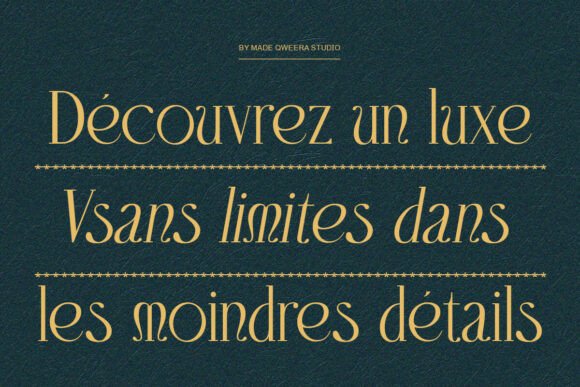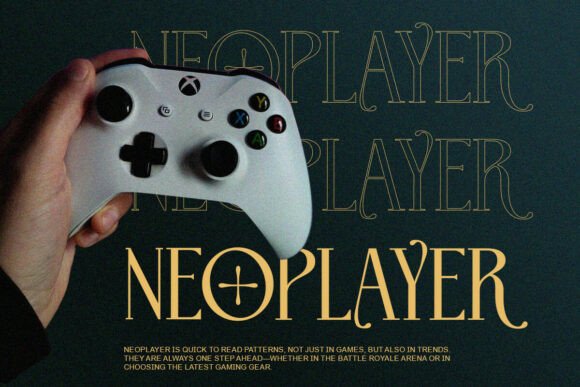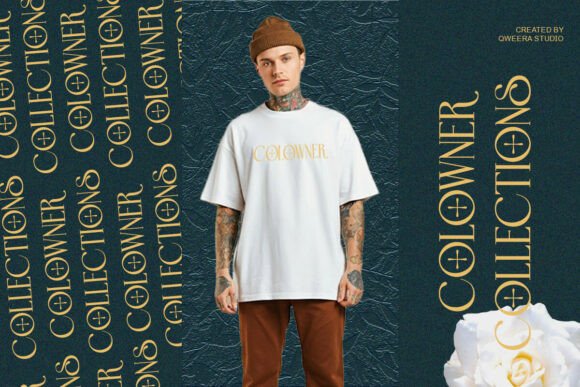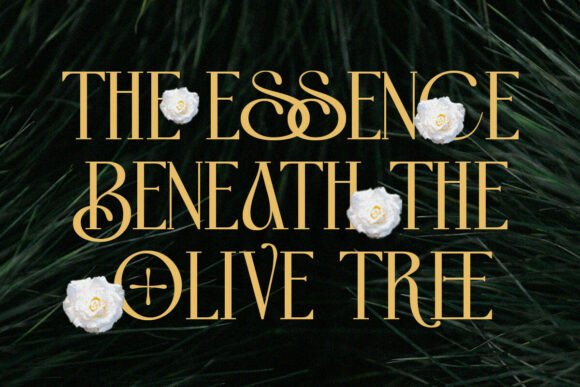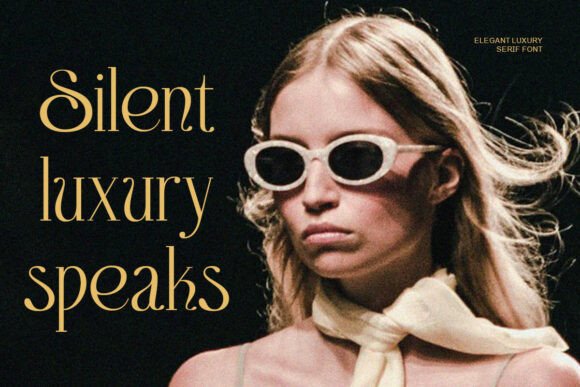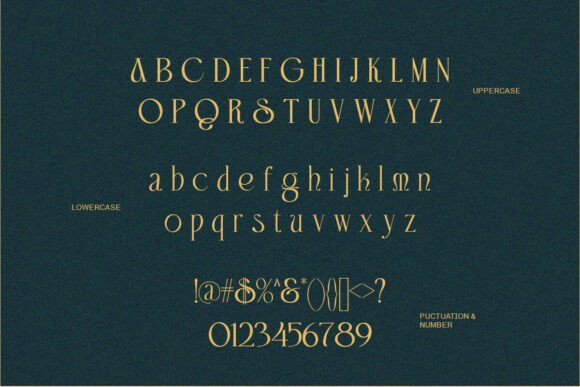
Introducing Domica Sauvage: The Epitome of Luxurious Serif Typography
In the realm of typography, few fonts manage to convey the essence of luxury, elegance, and high-fashion sophistication as effectively as Domica Sauvage. This stunning serif typeface is a masterclass in refined design, boasting elongated letterforms, delicate curves, and distinctive alternate characters that elevate it to a league of its own. Whether you’re a designer, craftsperson, or simply a connoisseur of fine typography, Domica Sauvage is sure to captivate your senses and inspire your creative endeavors.
A Perfect Blend of Elegance and Expressiveness
Domica Sauvage strikes an impeccable balance between editorial sophistication and expressive flair. Its beautifully crafted letterforms seem to dance across the page, imbuing any text with a sense of intentional grace. The font’s classic serif structure provides a solid foundation, while its modern experimental approach injects a much-needed dose of creativity and whimsy. This harmonious blend of old and new makes Domica Sauvage an exceptional choice for a wide range of applications, from luxury fashion branding and high-end jewelry packaging to premium cosmetic campaigns and fashion editorials.
Crafting a Statement with Domica Sauvage
When it comes to making a bold, refined statement, few fonts can rival the impact of Domica Sauvage. Its fine details and stylish strokes are meticulously designed to add an unmistakable touch of style and sophistication to any project. Whether you’re designing a logo, creating packaging for a luxury product, or laying out a fashion magazine, Domica Sauvage provides the perfect typographic solution. Its versatility and expressiveness make it an ideal choice for creative professionals seeking to push the boundaries of their craft.
Exploring the Features of Domica Sauvage
So, what sets Domica Sauvage apart from other serif typefaces? Here are just a few of its standout features:
- Full uppercase and lowercase alphabets: Domica Sauvage includes a comprehensive range of characters, ensuring that you have everything you need to create stunning text.
- Numbers and punctuation: The font also includes a complete set of numbers and punctuation marks, providing a versatile type system for premium visual storytelling.
- Distinctive alternate characters: With Domica Sauvage, you can add an extra layer of creativity to your designs, thanks to its distinctive alternate characters.
- Delicate curves and elongated letterforms: The font’s beautiful curves and elongated letterforms create a sense of fluidity and elegance, perfect for luxury fashion branding and high-end design.
Ideal Applications for Domica Sauvage
Given its exceptional elegance and versatility, Domica Sauvage lends itself to a wide range of applications, including:
- Luxury fashion branding: Create a lasting impression with Domica Sauvage’s sophisticated, high-end typography.
- High-end jewelry packaging: Elevate your packaging design with the font’s refined, luxurious aesthetic.
- Premium cosmetic campaigns: Domica Sauvage’s elegant, expressive typography is perfect for promoting high-end beauty products.
- Fashion editorials and magazines: Add a touch of sophistication to your editorial designs with Domica Sauvage’s beautiful, flowing letterforms.
- Luxury product design: Create stunning packaging and branding for luxury products, from watches to perfumes.
- Invitations and events: Make a lasting impression with Domica Sauvage’s elegant, refined typography, perfect for wedding invitations, gala events, and more.
| Author | Qweera Studio |
Domica Sauvage is a true masterpiece of serif typography, offering a unique blend of elegance, expressiveness, and sophistication. Whether you’re a designer, craftsperson, or simply a typography enthusiast, this luxurious font is sure to inspire your creative endeavors. With its beautifully elongated letterforms, delicate curves, and distinctive alternate characters, Domica Sauvage is the perfect choice for any project that demands refinement, style, and high-fashion sophistication.
So why settle for ordinary typography when you can make a statement with Domica Sauvage? Discover the power of this exceptional font and elevate your designs to new heights of luxury and sophistication.